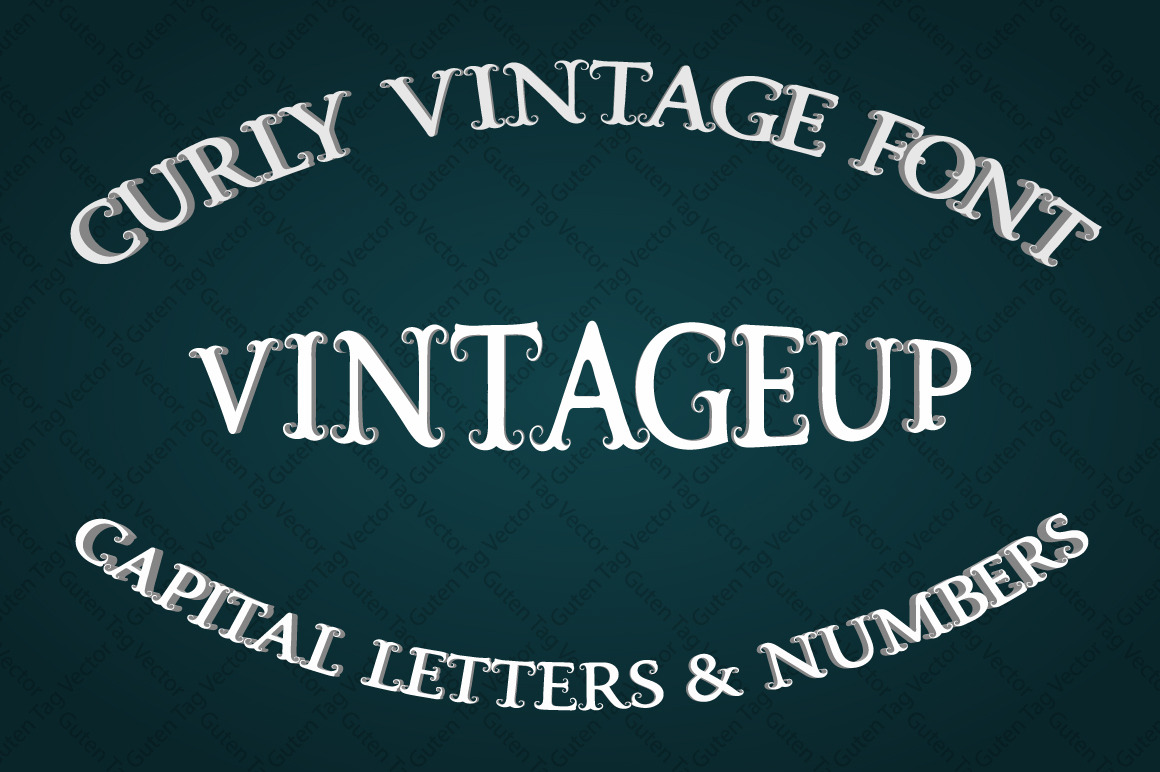
Vintage font with curls
Present to you curly vintage font for festive decoration in a classic style. The font is made up of capital letters and numbers, also here there is an ampersand. When purchasing the font you will get nice bonuses: vector alphabet with monogram constructor and vector decorations pack. Use and enjoy this quality product for little money for creating your gorgeous unique design.